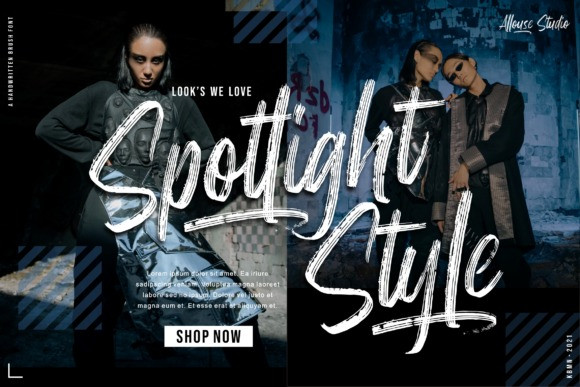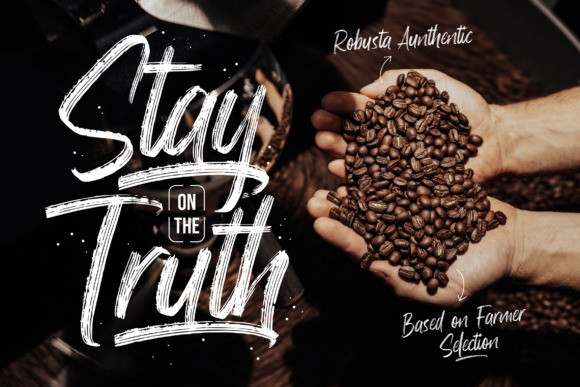
Street Walks Brush Font
Street Walks is a handwritten script display font. With rough brush stroke, strong character with a bit of ligatures and alternates. To give you an extra creative work. Street Walks font support multilingual more than 100+ language. This font is good for logo design, Social media, Movie Titles, Books Titles, a short text even a long text letter and good for your secondary text font with sans or serif. Make a stunning work with Street Walks font.